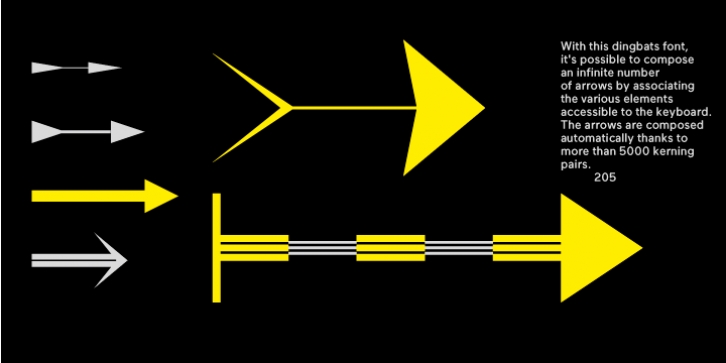
Publisher: 205
With this dingbats font, it’s possible to compose an infinite number of arrows by associating the various elements accessible to the keyboard. The arrows are composed automatically thanks to more than 5000 kerning pairs.